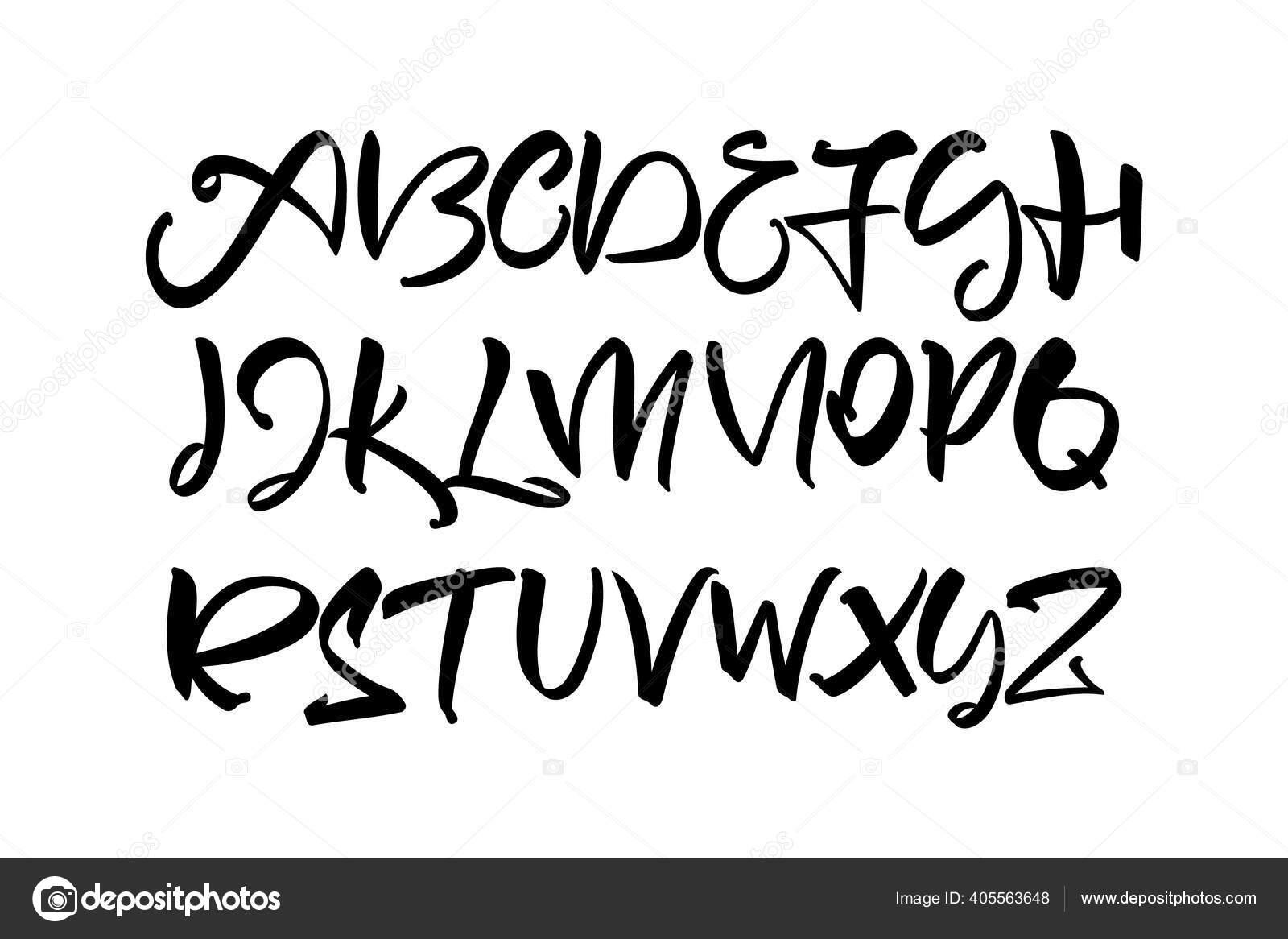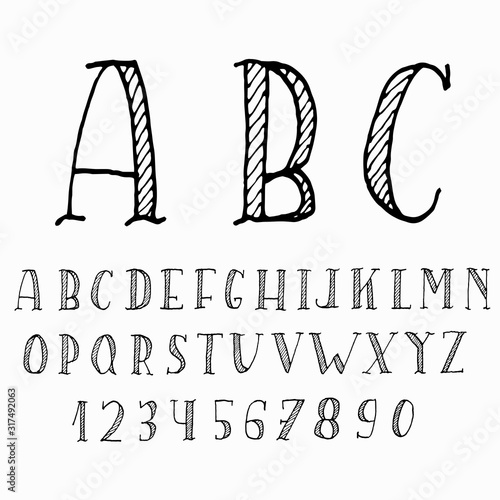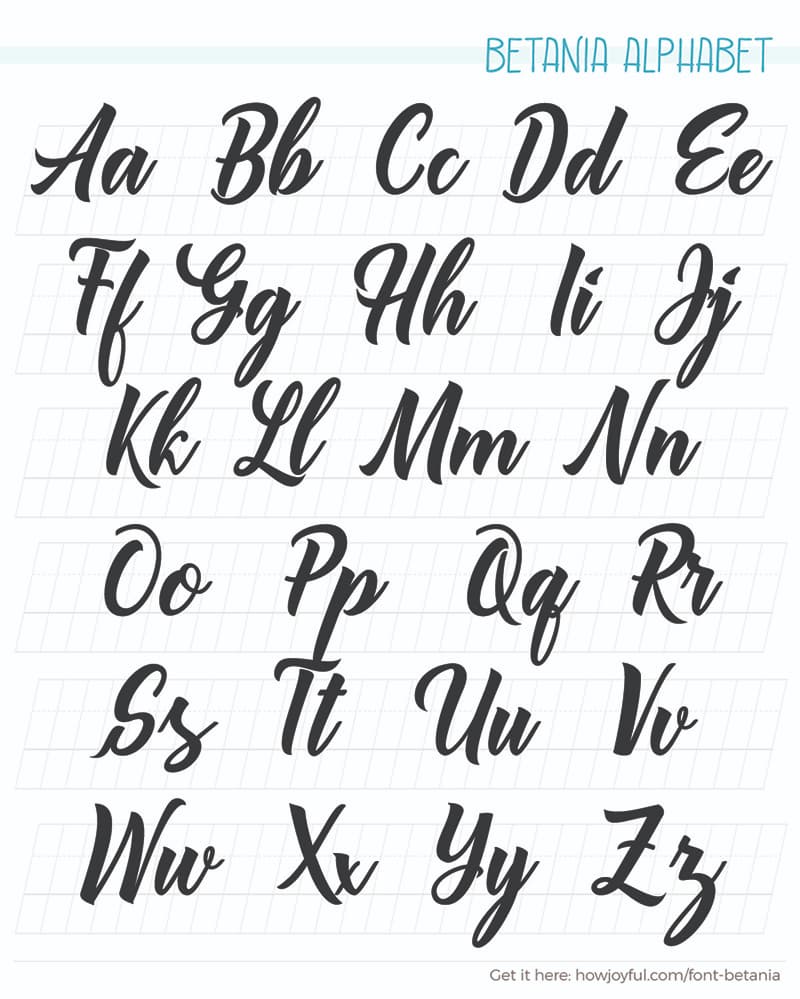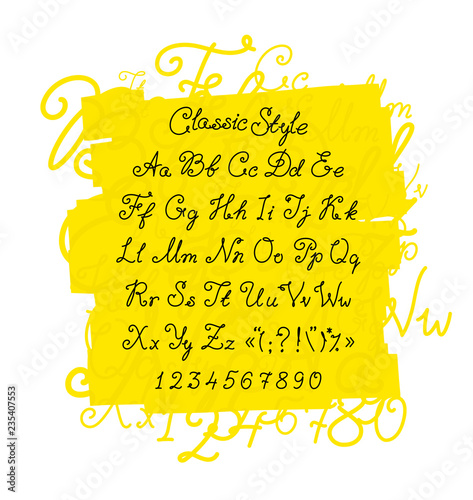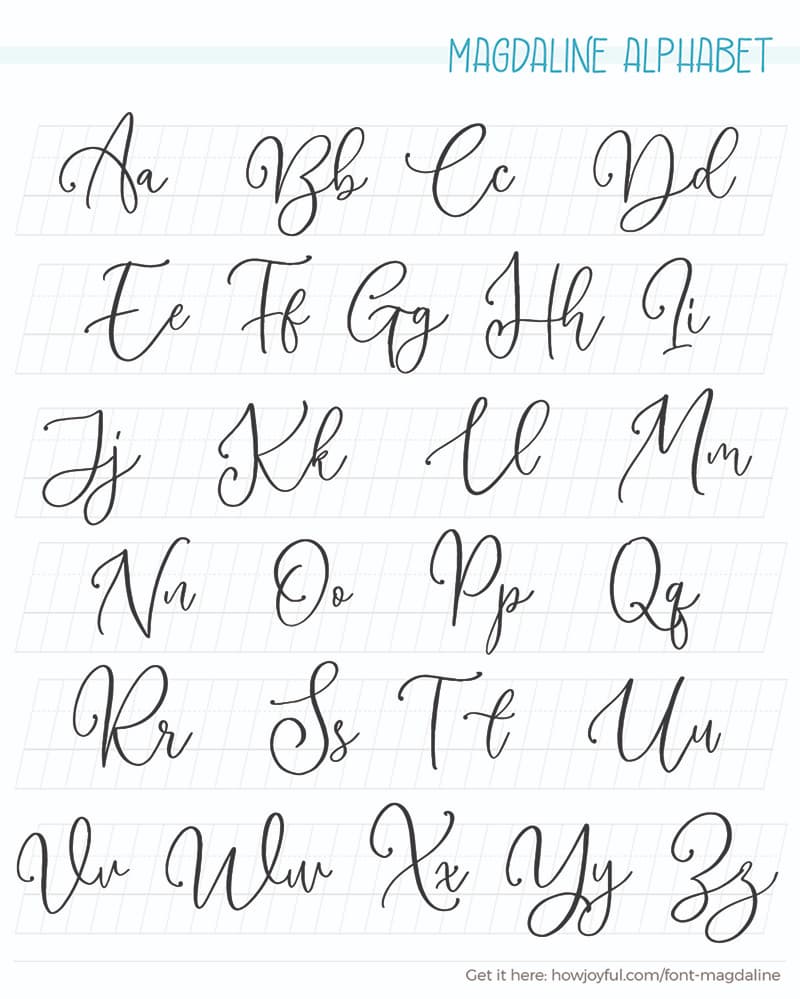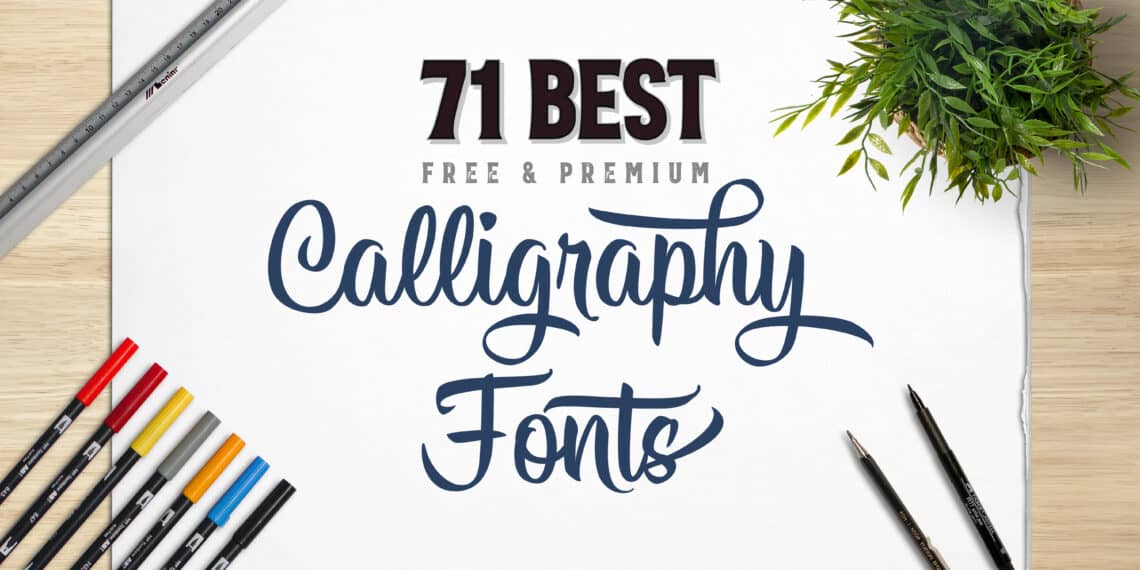
Calligraphy fonts a to z capital letters for beginners. International Cyrillic Commercial Fonts.
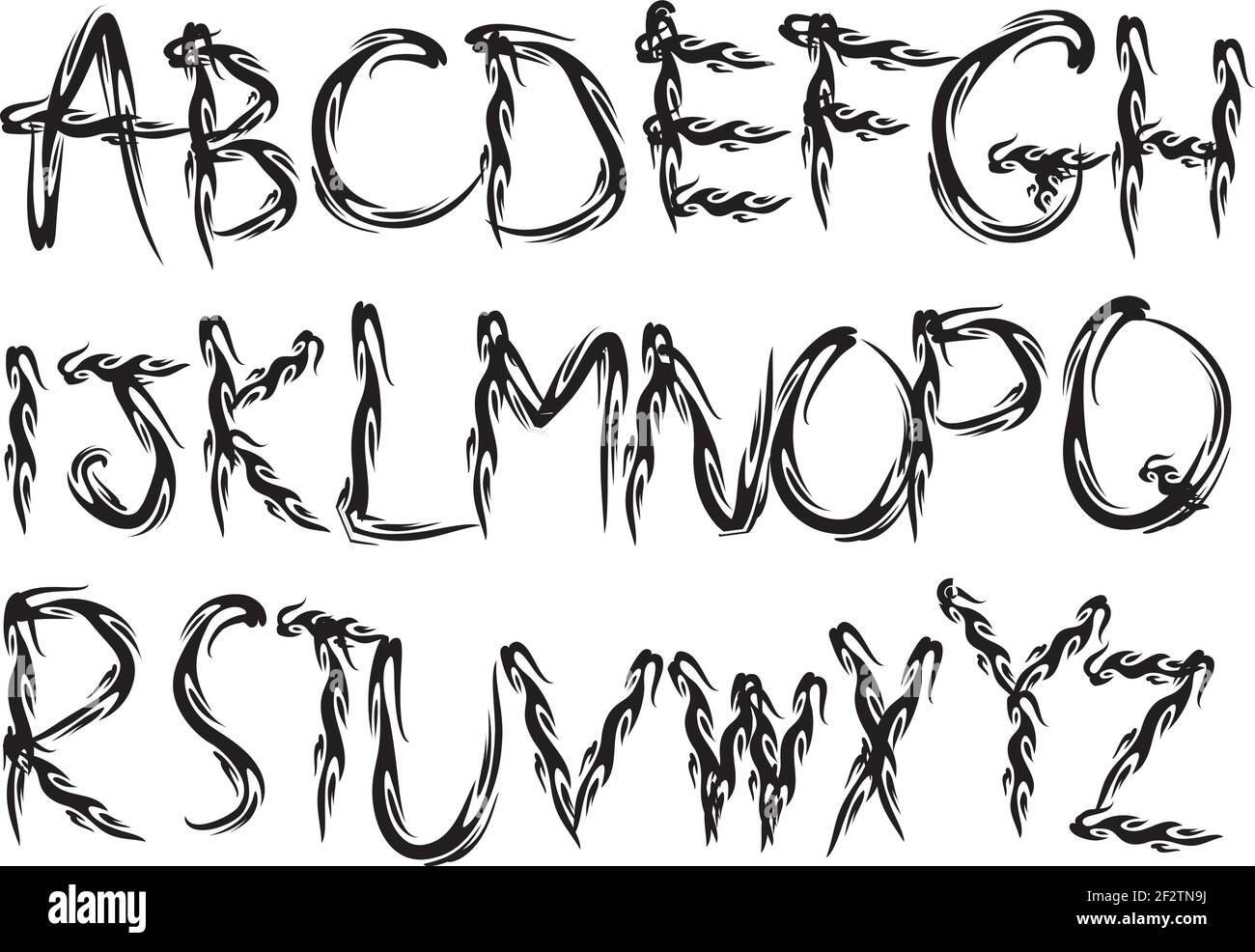
Handwritten calligraphy fonts capital letters. Get this image for FREE. 5 out of 5 stars 86 250. See more ideas about hand lettering calligraphy fonts lettering.
LilBaby Script Font is a romantic modern calligraphy typeface which supports Latin and Greek characters. This handwriting worksheets contain. Elegant hand-written calligraphic font.
Hand drawn vector alphabet letters. Calligraphy handwritten alphabet - download this royalty free Vector in seconds. The height of calligraphy was reached in the middle age where monks developed the narrow writing style called gothic allowing more words to fit on a single line as paper was expensive at the time.
In other words we can represent the cursive fonts as the script fonts or handwritten fonts that will bring in a natural and attractive feel to your design. Every font is free to download. Looking for Handwritten Calligraphy fonts.
Medieval Cyrillic Free Fonts. Its the perfect font for designing everything from website headers to greeting cards T-Shirt designs and more. The styles of this calligraphy alphabet is very cursive in nature with smooth lines and neat closings at the ends.
Georgette lowercase letters 2. Scale to any size without loss of resolution. Calligraphy Capital Letters Practice Sheets Hand Lettering Fonts Printable Alphabet Worksheets Learn Writing Fancy Cursive for Beginners.
Jun 4 2019 - Explore Rhonda Quigley-Allens board Handwritten calligraphy fonts on Pinterest. Calligraphy is an ancient writing technique using flat edged pens to create artistic lettering using thick and thin lines depending on the direction of the stroke. Handwritten Calligraphy Flourish Font Capital Letters Stock Vector Royalty Free 344097317.
Handwritten brush flourish font. Calligraphy svg handwritten svg font svg alphabet svg letters svg alphabet cut file letters cut file decal FontCut. Download Calligraphy Fonts Capital I This beautiful handwritten script font features both uppercase and lowercase letters with numbers and punctuations.
Handwritten calligraphy flourish font. Handwritten Cyrillic Free Fonts. Download Calligraphy Fonts A To Z Capital Letters This beautiful handwritten script font features both uppercase and lowercase letters with numbers and punctuations.
Cursive Stylish Handwriting For Beginners Calligraph Alphabets A. Bulgarian Cyrillic Commercial Fonts. Calligraphy capital i in cursive.
Download Calligraphy Fonts A To Z Capital Letters This beautiful handwritten script font features both uppercase and lowercase letters with numbers and punctuations. We have 1246 free Calligraphy Handwritten Fonts to offer for direct downloading 1001 Fonts is your favorite site for free fonts since 2001. Download this Handwritten Calligraphy Flourish Font vector illustration now.
Its the perfect font for designing everything from website headers to greeting cards T-Shirt designs and more. Georgette is a monoline handwriting style that is suitable for your bullet journal. You can use it to highlight the headings and titles within your planner.